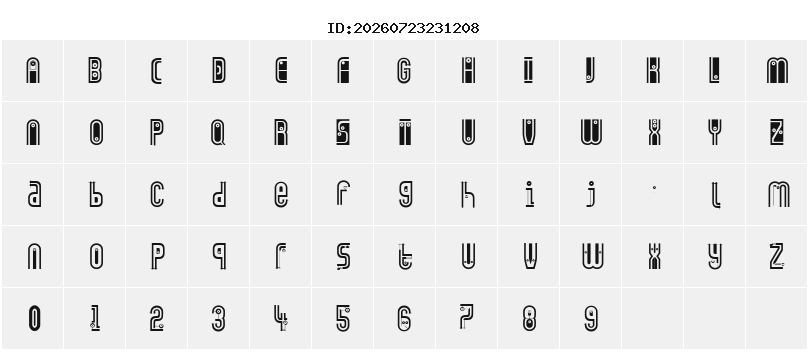
About EyeCatching.ttf
EyeCatching.ttf is a modern, elegant sans-serif font designed for ultimate readability and visual harmony. Perfect for branding, headlines, web design, and print materials.